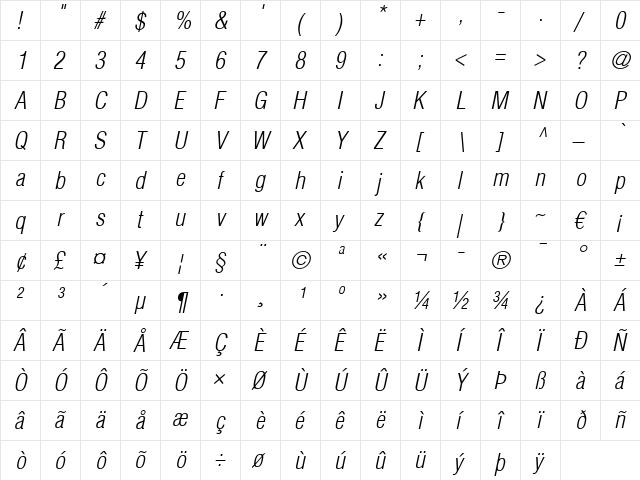
Helvetica LT CondensedLight Italic Font Preview
Design Context for Helvetica LT CondensedLight Typeface
Helvetica LT CondensedLight offers clean, dependable letterforms without strong stylistic allegiance, making it a practical choice for designers who need flexibility. The dynamic lean of this cut emphasises speed and emphasis in any layout. The delicate stroke weight brings airiness and refinement to layouts. Its narrow stance lets it pack a punch even in space-constrained designs.
Pro Tip: Try Helvetica LT CondensedLight for annotation and caption copy alongside an upright companion — the contrast in angle creates a dynamic but ordered typographic system.